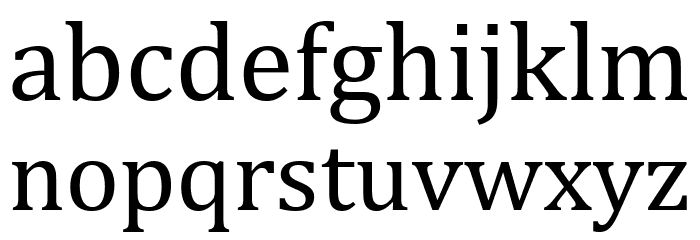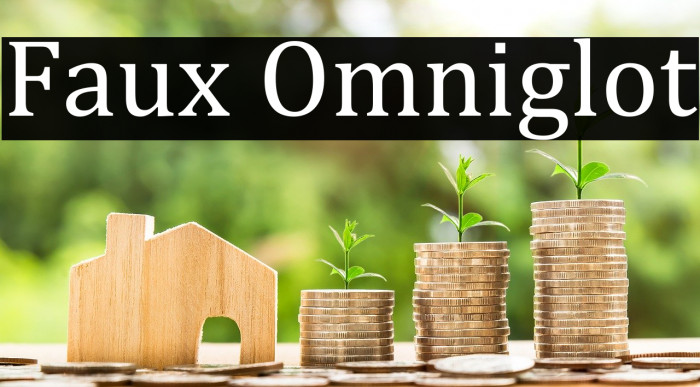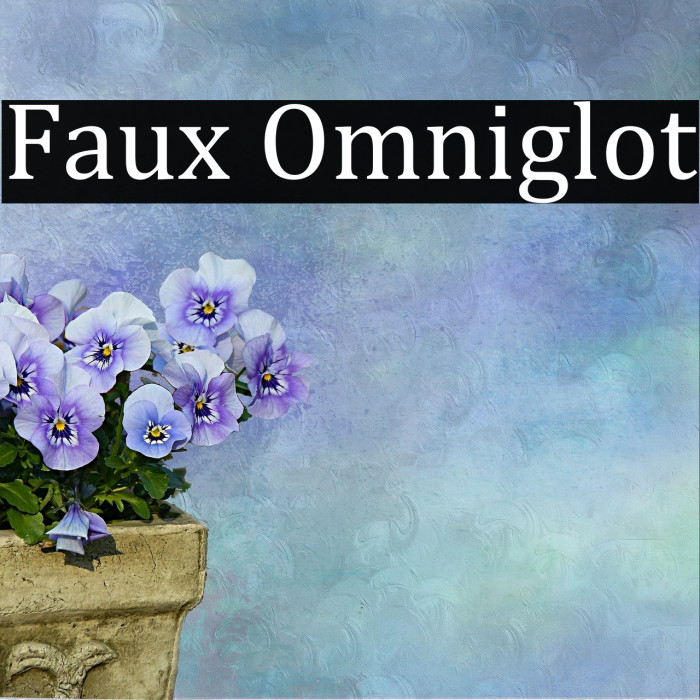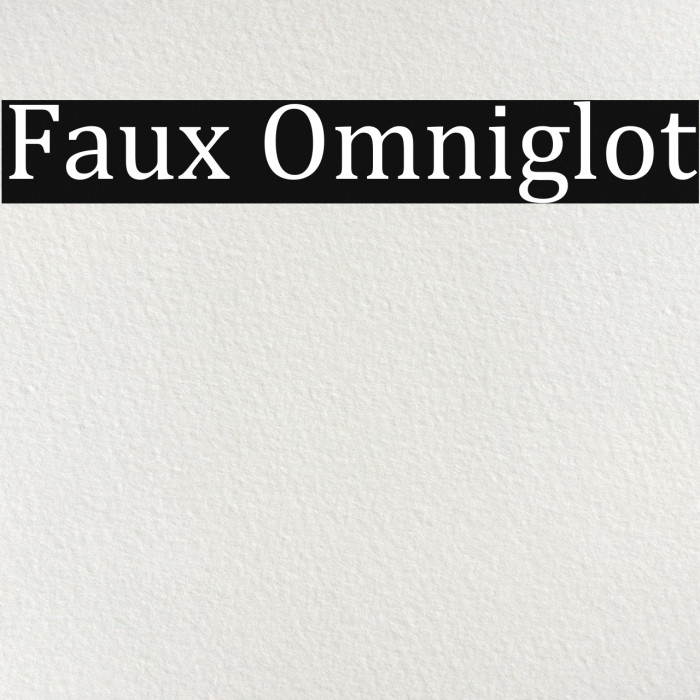
Faux Omniglot Font
This typeface exhibits a classic serif style with a strong presence and elegant curves. The uppercase letters are bold and commanding, while the lowercase letters maintain a harmonious balance with slightly rounded edges. The numerals are clear and distinct, ensuring readability. Special characters are well-integrated, maintaining the overall aesthetic. The font's design is versatile, suitable for both formal and contemporary applications, making it an excellent choice for a wide range of projects.
A classic serif typeface with elegant curves and strong presence.
- Proposed Projects: Ideal for editorial design, book covers, formal invitations, branding, and corporate communications.
- Category: Serif
- Overall Style: Classic